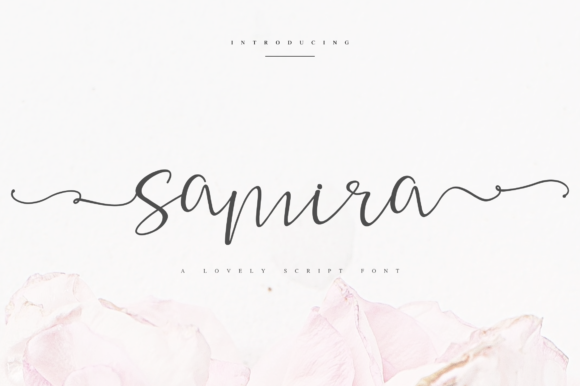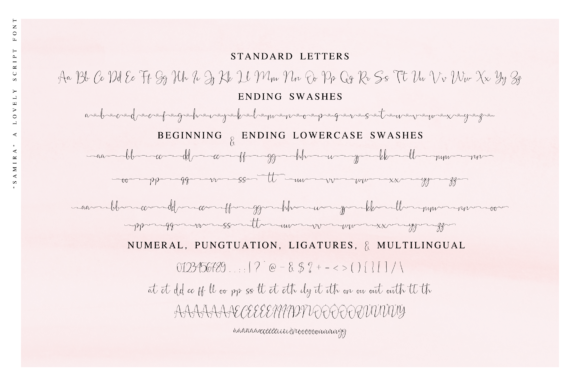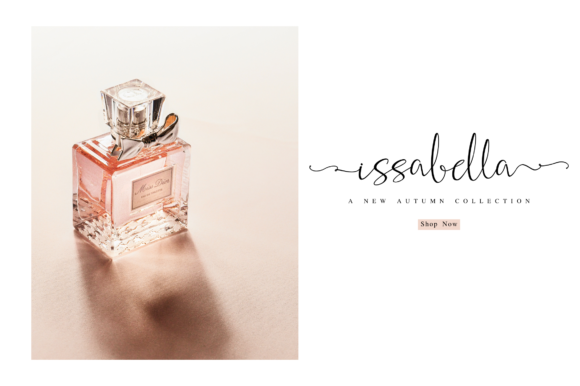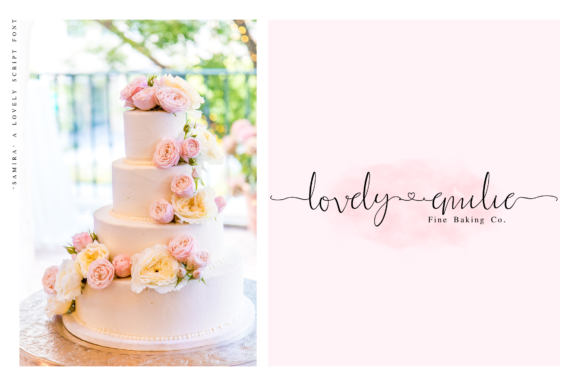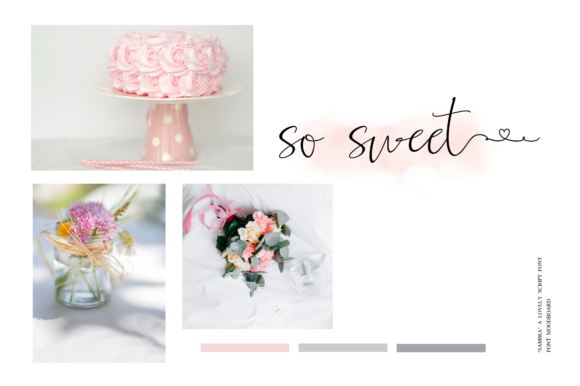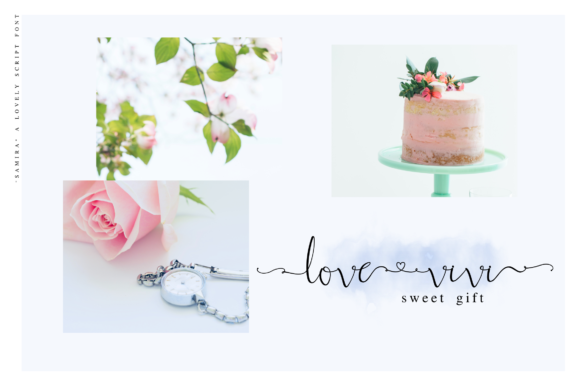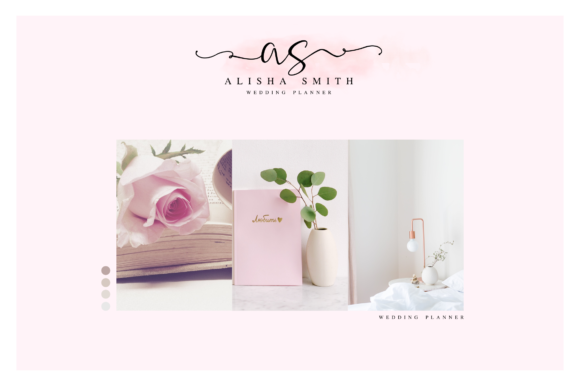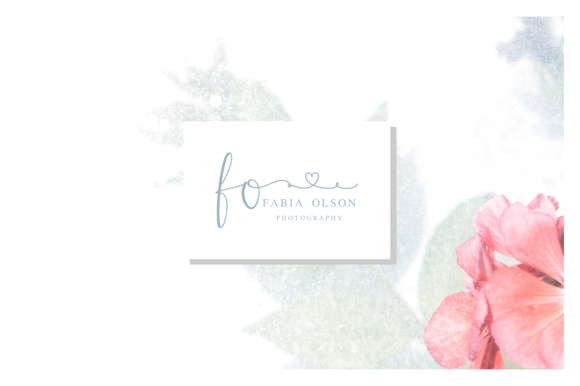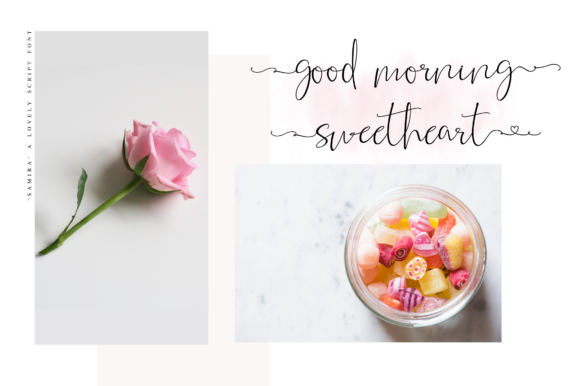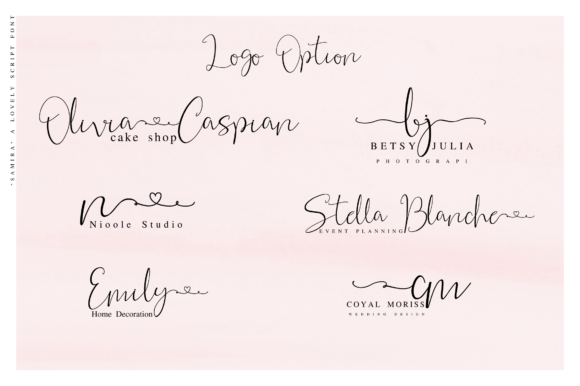
Samira Font
About Samira Font
The Samira is a modern calligraphy font with handwritten, sophisticated flows. It is full of hearts and glyph’s.
It is perfect for branding, wedding invites and cards, and much more.